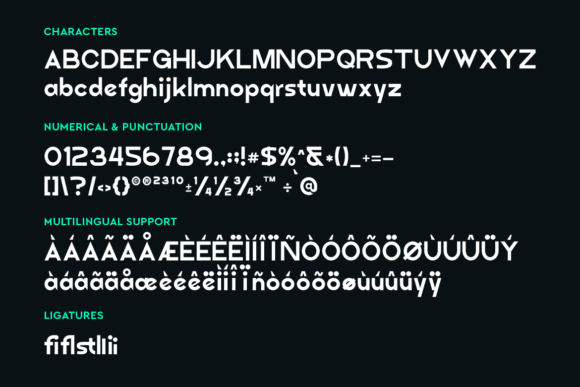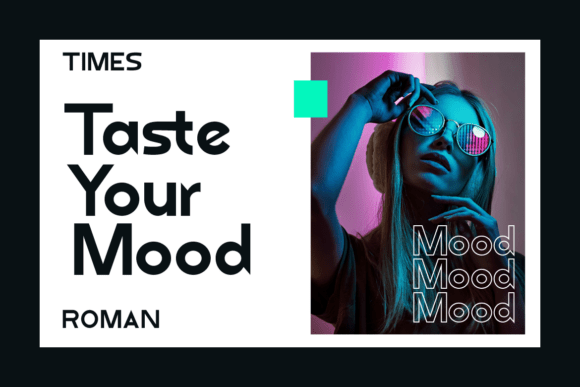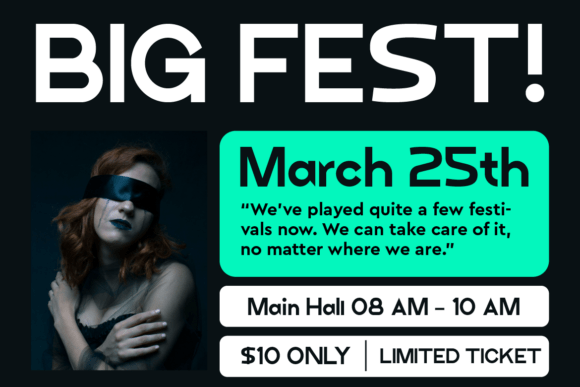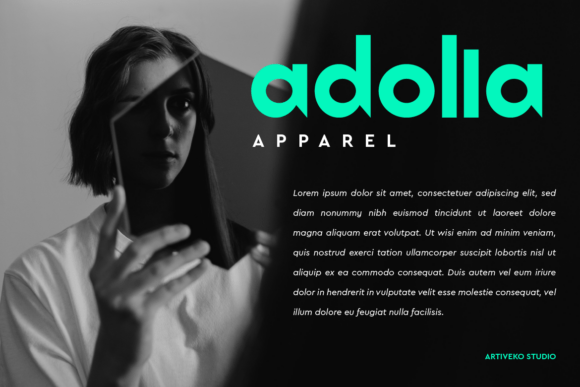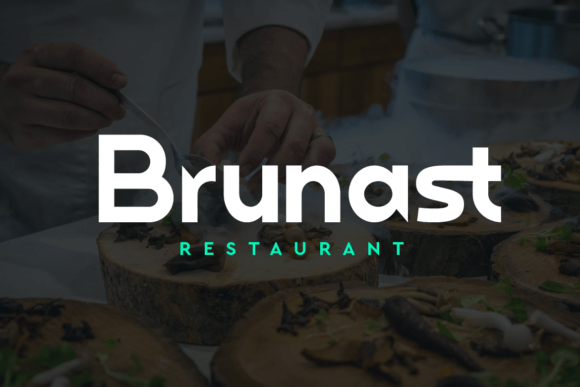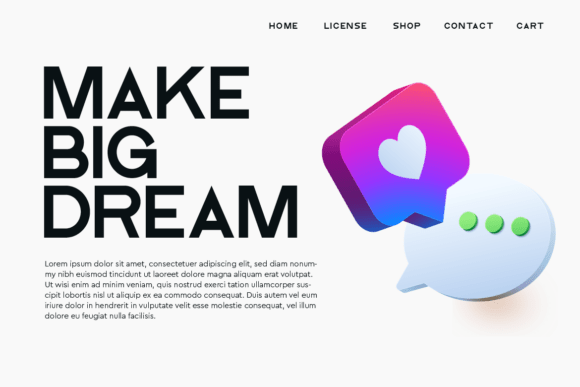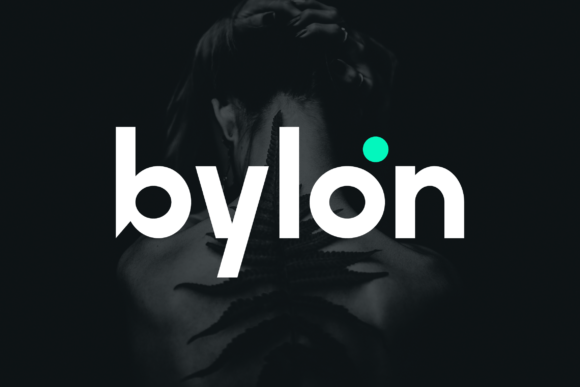
What is Bylon Font?
Bylon is a sleek and versatile sans serif font, carefully crafted for impactful logo design and strong visual identities. Its clean lines, geometric shapes, and contemporary aesthetic make it perfect for creating wordmarks, branding systems, headlines, packaging, and social media graphics. Whether you’re a designer, crafter, or creative hobbyist, Bylon is sure to become a valuable addition to your font library.
An Honest Review of Bylon Font
The Good: What I Love About Bylon Font
- ✨ Clean and modern design: Bylon’s sleek lines and geometric shapes give it a fresh and contemporary look that’s perfect for modern brands.
- ✅ Versatile: This font is designed to work well in a variety of contexts, from logo design to headlines and packaging.
- 🌈 Highly legible: Bylon’s clear and simple design makes it easy to read, even at small sizes.
The Not-So-Good: Small Quirks and Limitations
While Bylon is an excellent font, it’s not without its quirks. Here are a few things to keep in mind:
- 🤔 Limited italic options: Bylon’s italic styles are a bit limited, which might be a drawback for some users.
- ⚠️ Not ideal for body text: While Bylon is highly legible, it’s not designed for long-form body text. It’s best used for headlines, titles, and short paragraphs.
Bylon was designed with the modern brand in mind. Its creator, a talented type designer, drew inspiration from the latest design trends and crafted a font that’s both stylish and versatile. The goal was to create a font that would help brands stand out in a crowded market, while also providing a clean and modern aesthetic.
Q: What is Bylon Font best used for?
A: Bylon is best used for logo design, branding systems, headlines, packaging, and social media graphics.